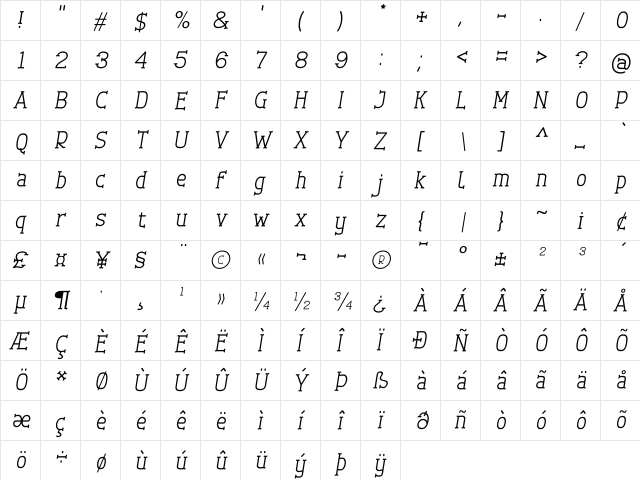
Cherrytha Three Italic
| Designer | Jasman Nazara; Situjuh Nazara |
Design Context for Cherrytha Three Typeface
Cherrytha Three takes a measured approach to typography — its balanced proportions and neutral character make it a reliable workhorse for both digital and print work. The dynamic lean of this cut emphasises speed and emphasis in any layout.